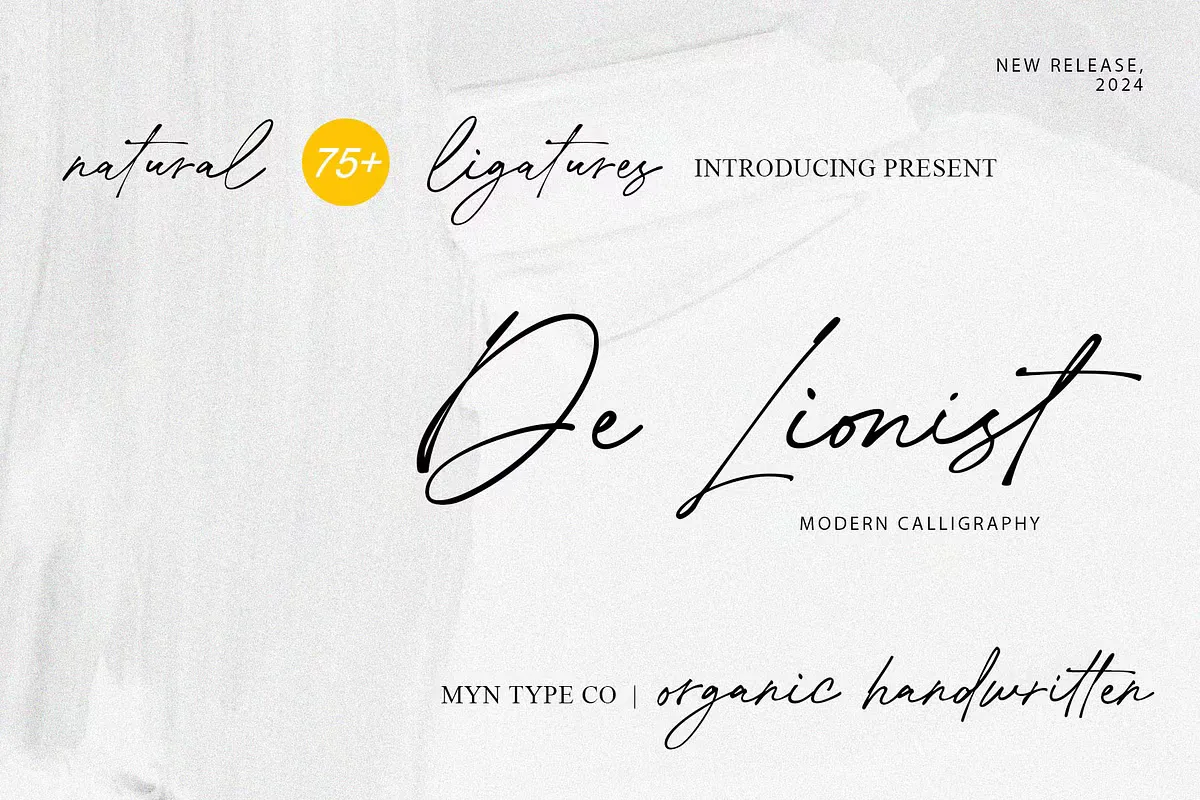
Discover De Lionist, a free natural handwritten script font with elegance and charm. Perfect for wedding invitations, logos, quotes, journals, and branding, this versatile font blends organic curves with a chic, feminine touch. Featuring stylish ligatures and a timeless cursive style, De Lionist is ideal for creating romantic designs, vintage-inspired projects, or contemporary aesthetics. Whether you’re crafting content for Canva, or Instagram, or designing pretty logos, this font’s natural flow adds a personal, friendly vibe to any project. Embrace the beauty of handwritten artistry with De Lionist!
De Lionist Free Natural Handwritten Script Font